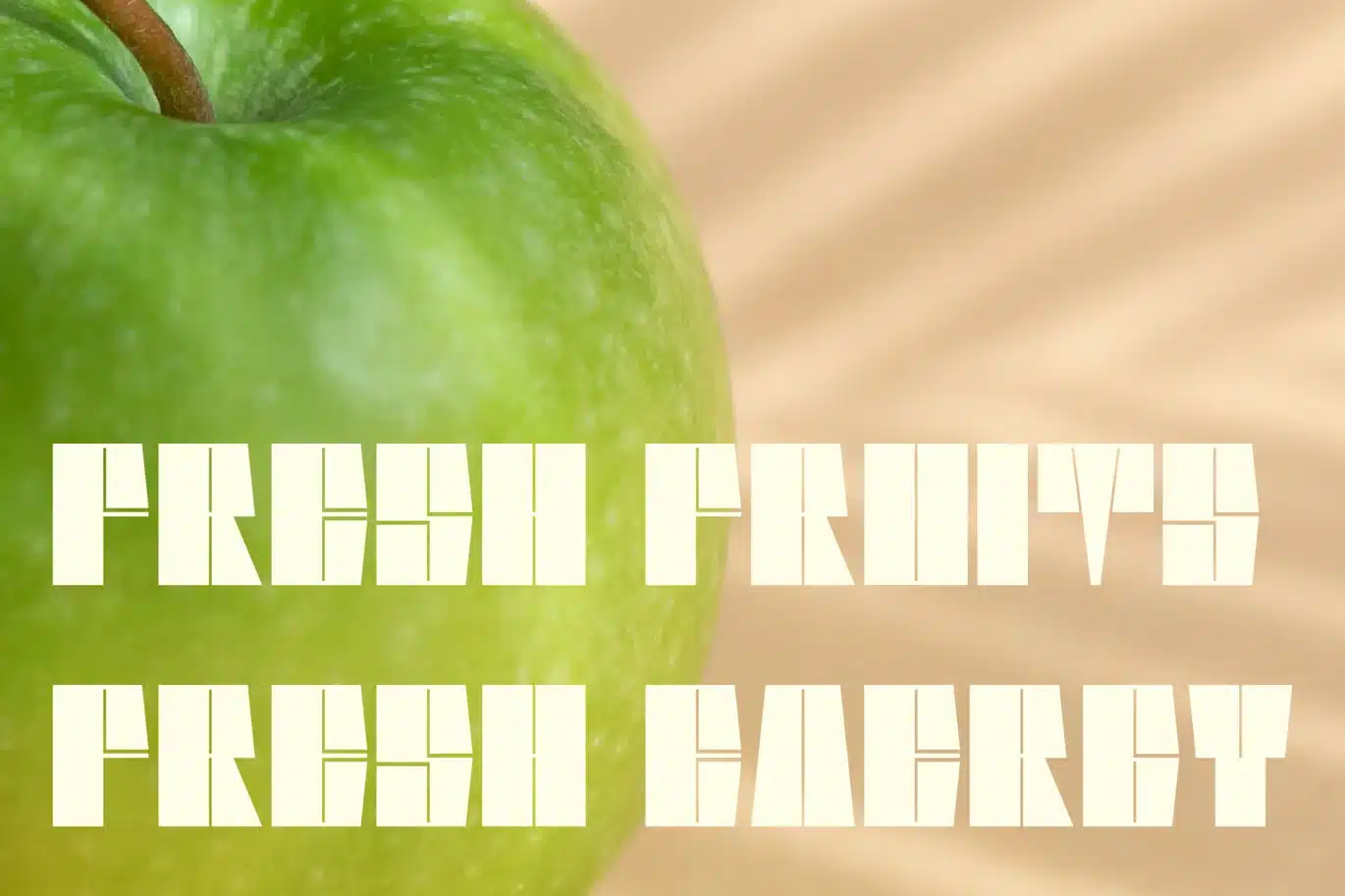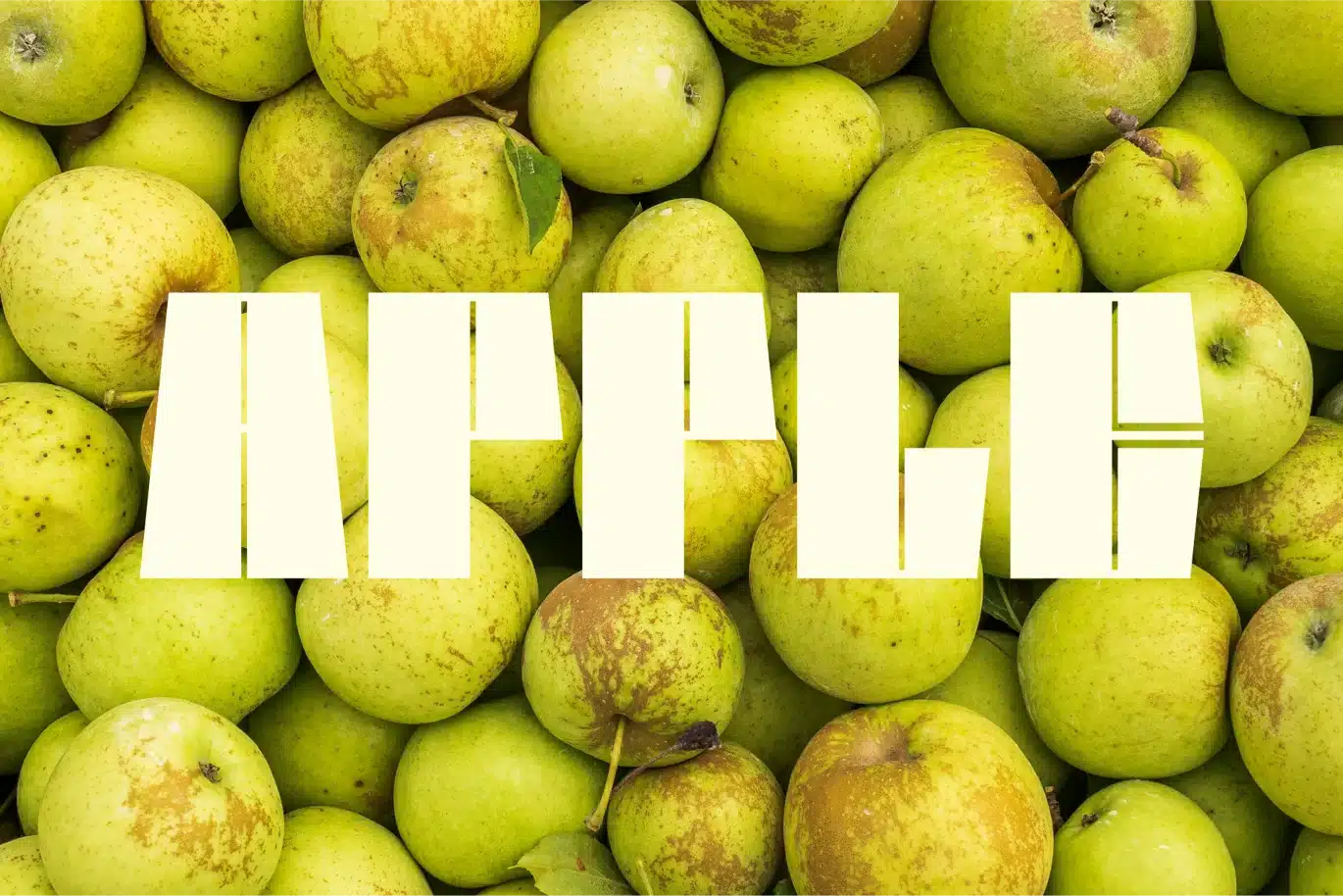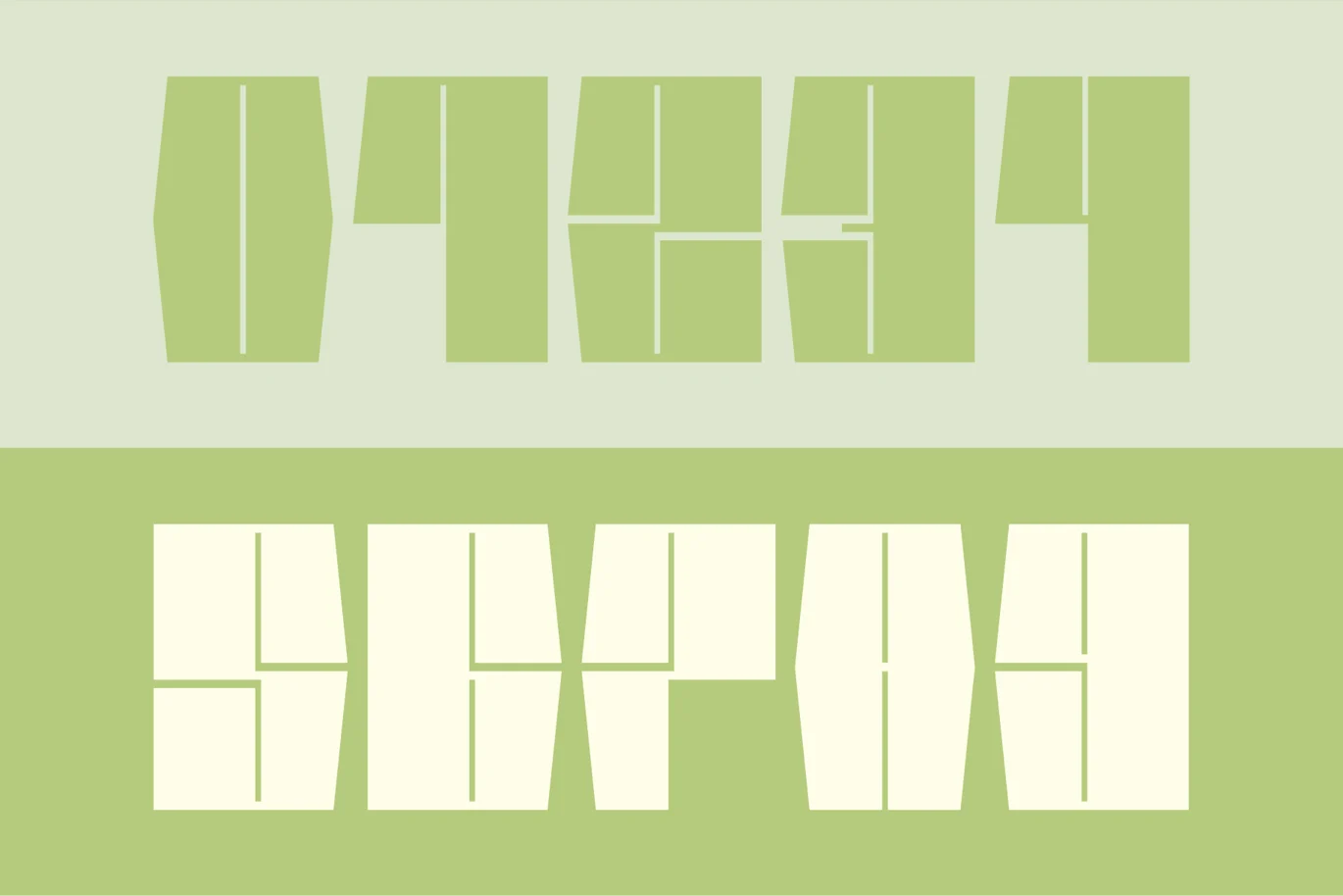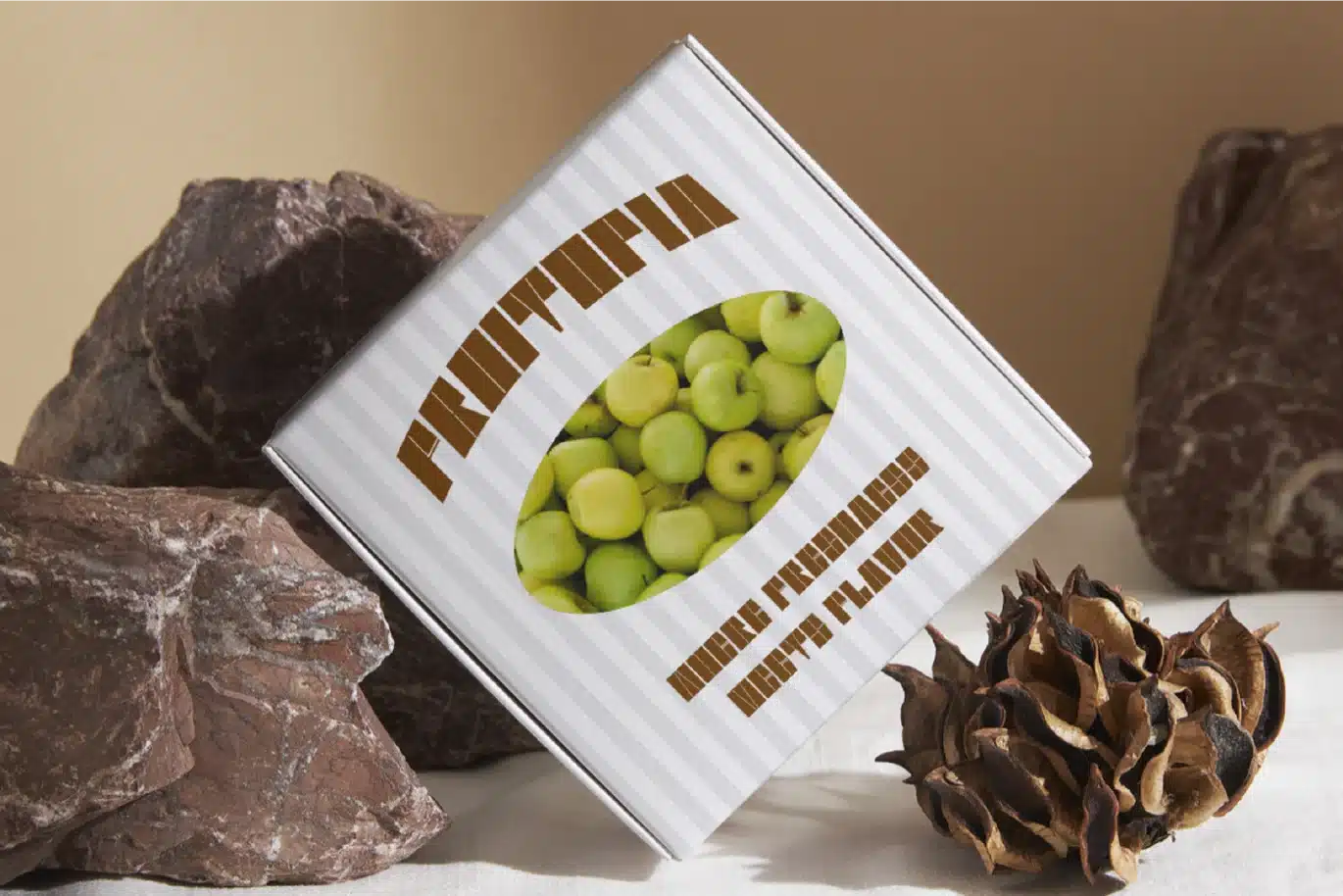
Luneth – Bold Display Font
Luneth is a striking bold typeface crafted for designers who want their words to stand out. With its solid structure and contemporary style, Luneth works beautifully for logos, headlines, posters, and high-impact visual identities.